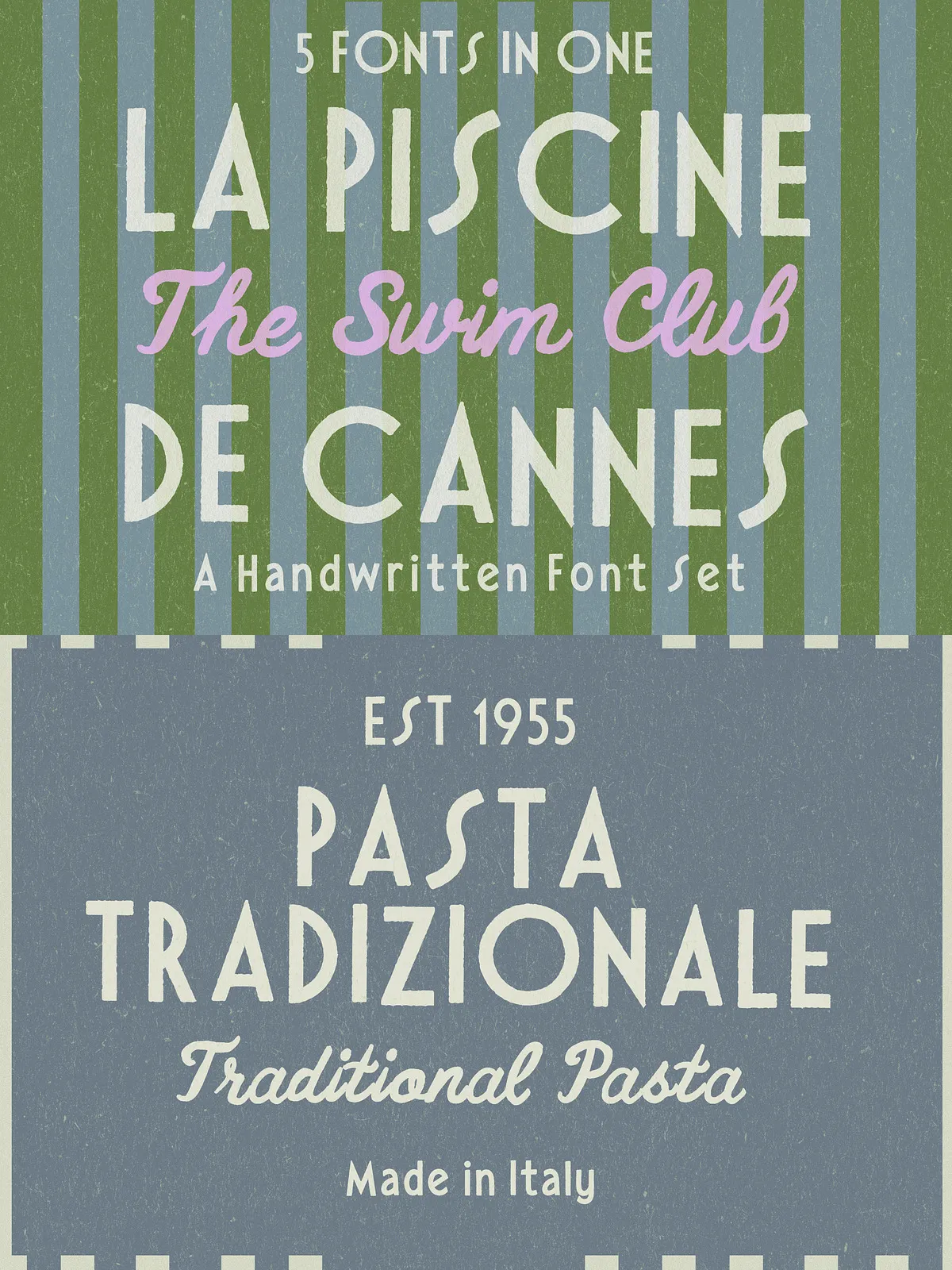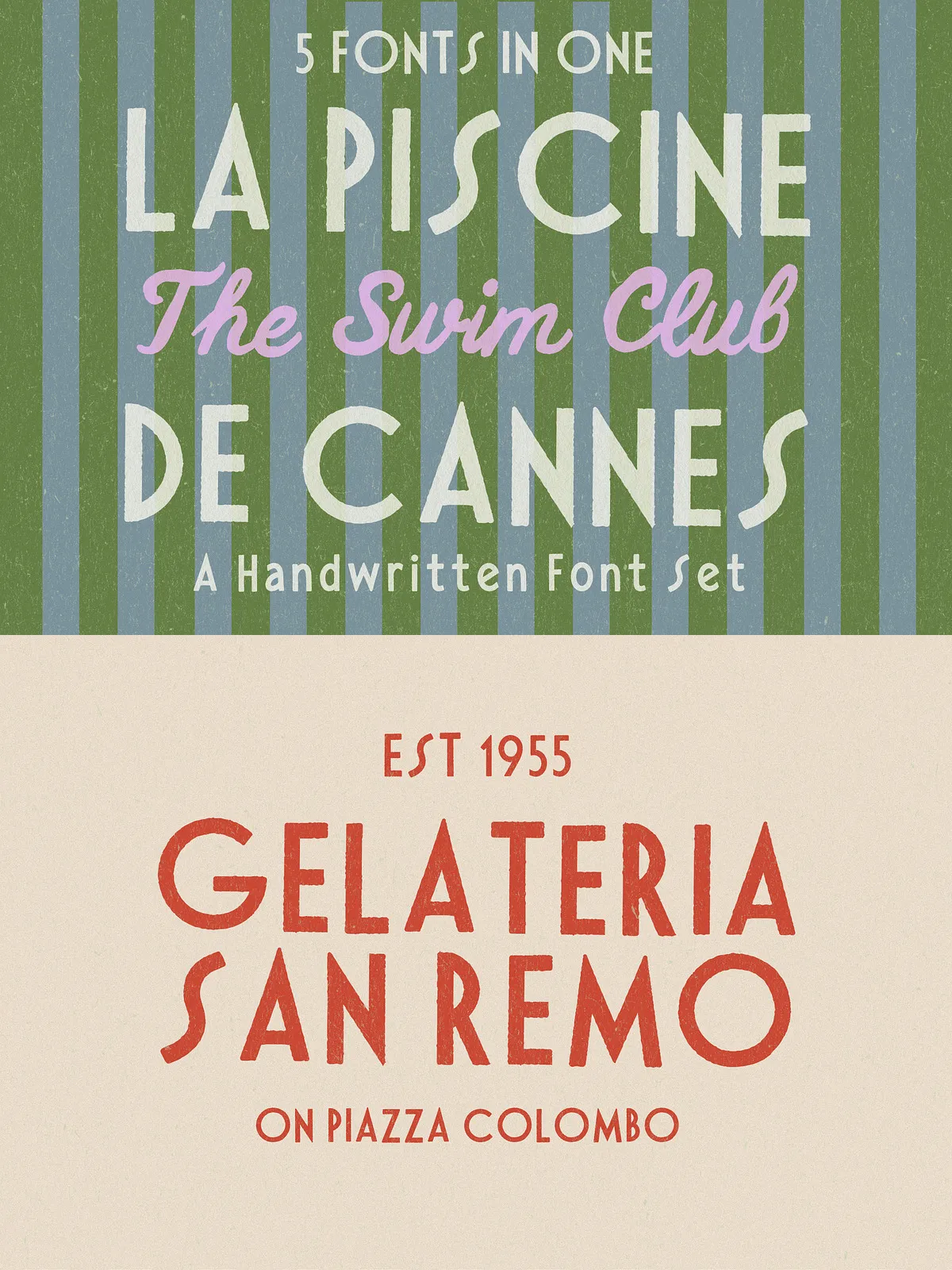
La Piscine de Cannes captures sun-faded nostalgia and effortless Mediterranean style. Inspired by coastal hotels, striped umbrellas, handwritten menus, and retro pizzeria signs, this family blends a confident sign-painter sans with a warm, playful script. Designers seeking a relaxed yet stylish voice will find La Piscine de Cannes ideal for projects that demand character without pretension. Use it to evoke the charm of found postcards and the relaxed glamour of an Italian summer or a French pool club.
Sign-Painter Sans with Vintage Charm
The sans variants channel an authentic sign-painter aesthetic: confident strokes, generous counters, and slightly humanized proportions that read clearly across a wide range of sizes. The Bold and Thin weights create contrast while maintaining a cohesive visual tone.
Playful Handwritten Script
The script pairs naturally with the sans, adding friendly, handcrafted accents for menus, headlines, and logo marks. Use the script to introduce personality—handwritten names, taglines, or callouts—without disrupting the vintage identity.
Outlined & Display Options
The outlined version gives designers a decorative tool for signage, posters, and merchandise. Layer the outline over color fills, textures, or photographic backgrounds to reproduce that retro, sun-faded look with modern production quality.
Perfect For
- Vintage summer branding and boutique hotel identities
- Restaurant and café menus with a coastal or Mediterranean vibe
- Retro logos, pizzeria packaging, and food branding
- Beach club graphics, poolside event collateral, and seasonal merch
- Wedding stationery that seeks a nostalgic, sunlit aesthetic
- Travel-inspired prints, posters, and moodboard-driven campaigns
Pairing Recommendations
Pair La Piscine de Cannes sans with a neutral serif or a modern geometric sans for long-form text to preserve readability. Use the script sparingly for accents—names, callouts, and short phrases—so it retains impact. For hierarchy, combine Thin for subtle subheads, Regular for body headlines, and Bold or Outline for primary display text.
Styling Tips